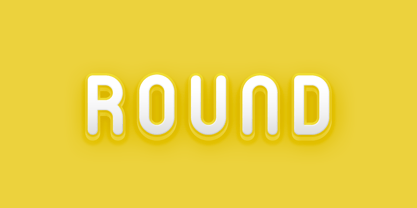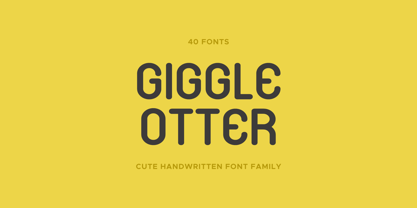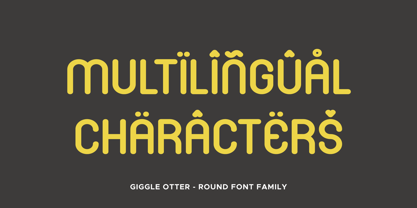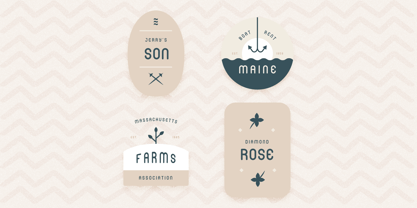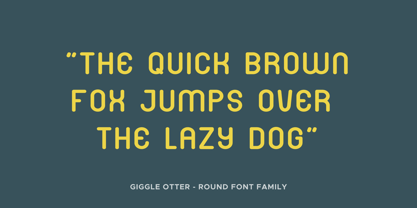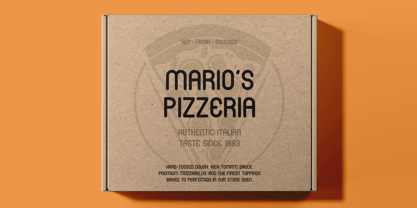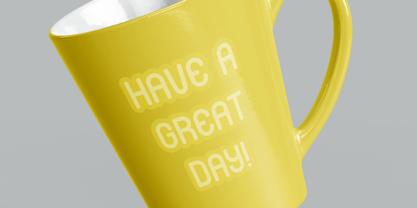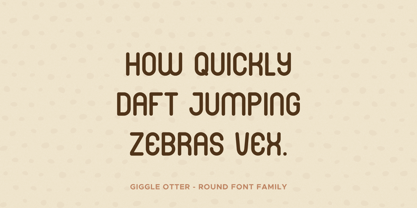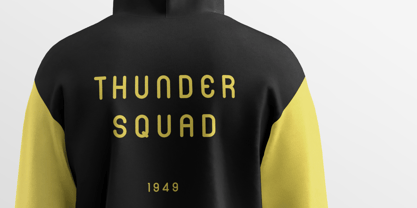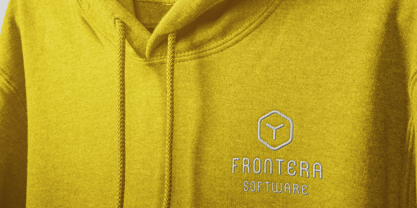
Giggle Otter is a playful round sans serif typeface designed to bring warmth, charm, and personality to modern typography. Built with soft curves and friendly shapes, the typeface balances readability with a lively handcrafted character, making it ideal for branding, packaging, posters, social media graphics, children's products, and creative editorial design.
The family includes an extensive range of stylistic variations, allowing maximum creative flexibility. From clean and minimal to rough, worn, or textured finishes, Giggle Otter adapts easily to both playful and edgy design environments.
Included styles explore multiple visual textures such as Brush, Cut, Eroded, Grit, Ink, Rough, Rust, Scratch, and Worn. Each texture comes with outline and italic variations, enabling layered typography, vintage effects, and bold display compositions.
Despite its expressive textures, the underlying structure remains a rounded sans serif with balanced proportions and strong legibility. This makes the typeface suitable for both large display use and short text applications.
Giggle Otter also supports a wide Latin language set, covering dozens of languages across Europe, Africa, and Southeast Asia. This broad language support makes it suitable for international branding and multilingual design projects.
With its mix of friendly shapes and rugged stylistic options, Giggle Otter is perfect for designers who want a versatile display typeface that can shift from cute and cheerful to bold and textured.
Whether used for branding, packaging, posters, merchandise, or digital graphics, Giggle Otter adds character, warmth, and a touch of playful attitude to any design.
Giggle Otter